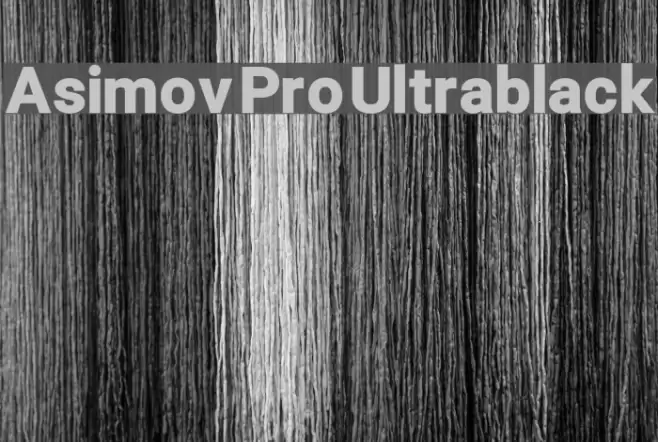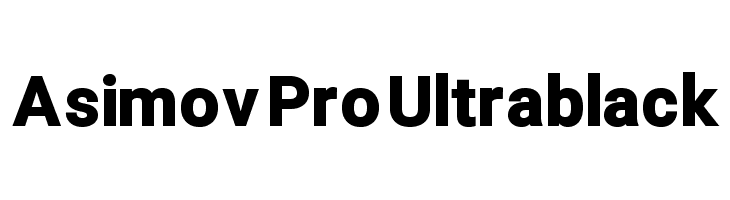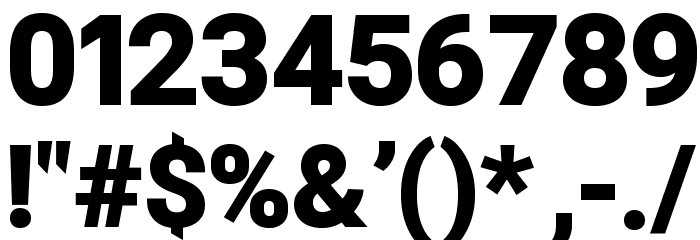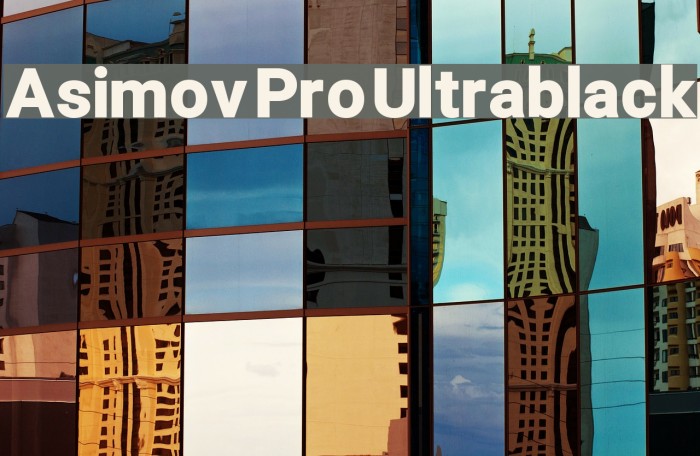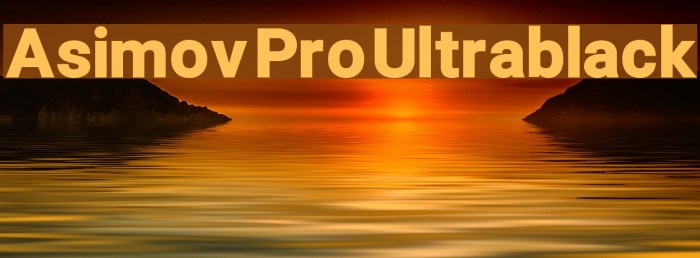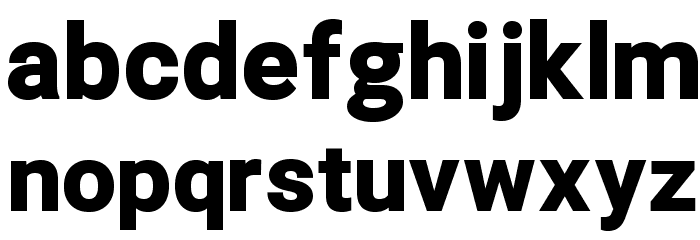
Asimov Pro Ultrablack Font
Asimov Pro Ultrablack Description
This font is a bold and impactful sans-serif typeface, characterized by its thick, uniform strokes and modern aesthetic. The uppercase and lowercase letters are designed with a strong presence, making them ideal for attention-grabbing headlines and titles. The numerals are equally bold, ensuring clarity and readability. Special characters are crafted with the same weight and style, maintaining consistency across all glyphs. The overall design is clean and straightforward, with a focus on functionality and modernity. Its heavy weight and solid structure make it suitable for projects that require a strong visual impact.
A bold, modern sans-serif font with thick, uniform strokes from Uncategorized fonts.